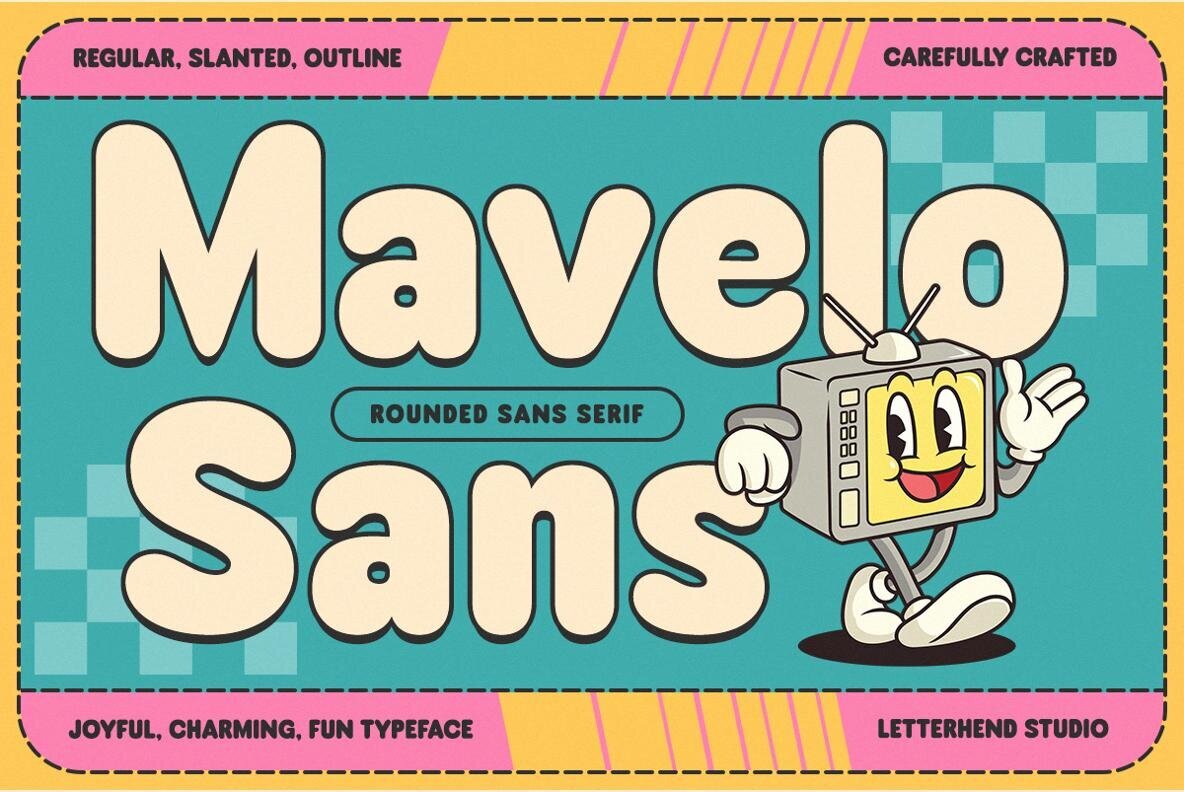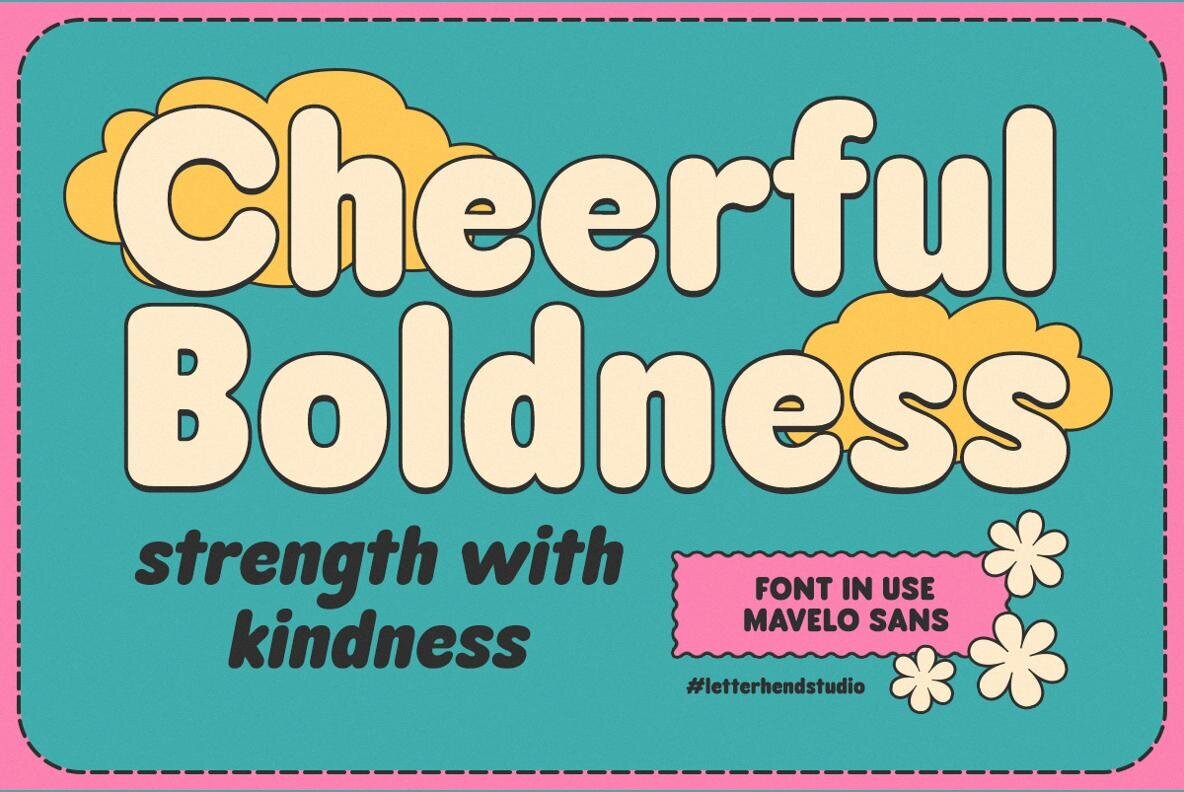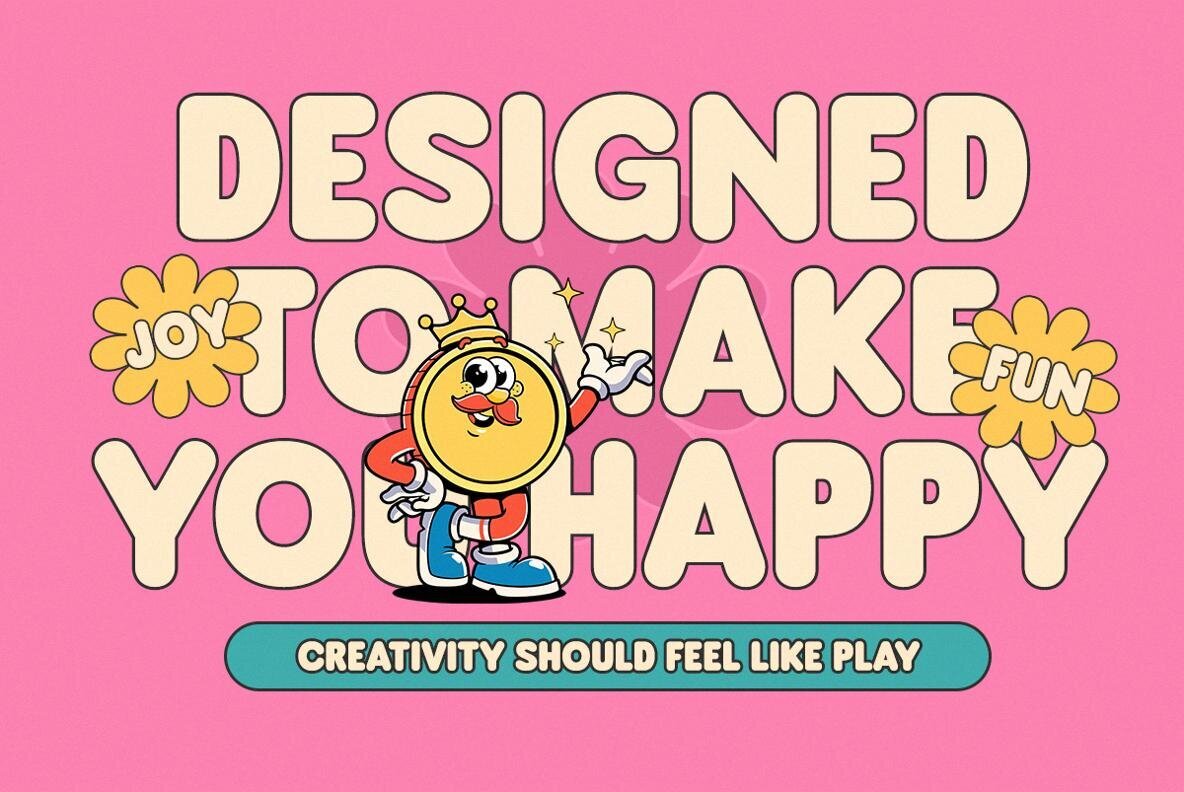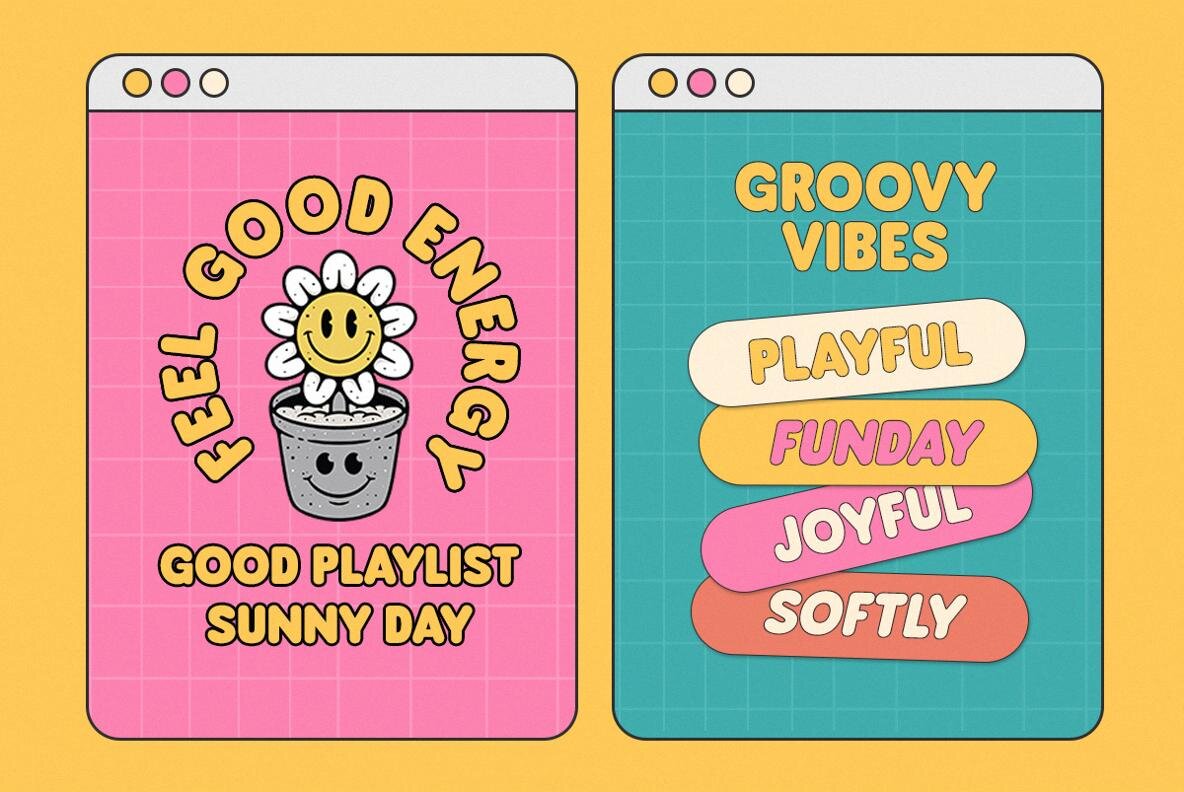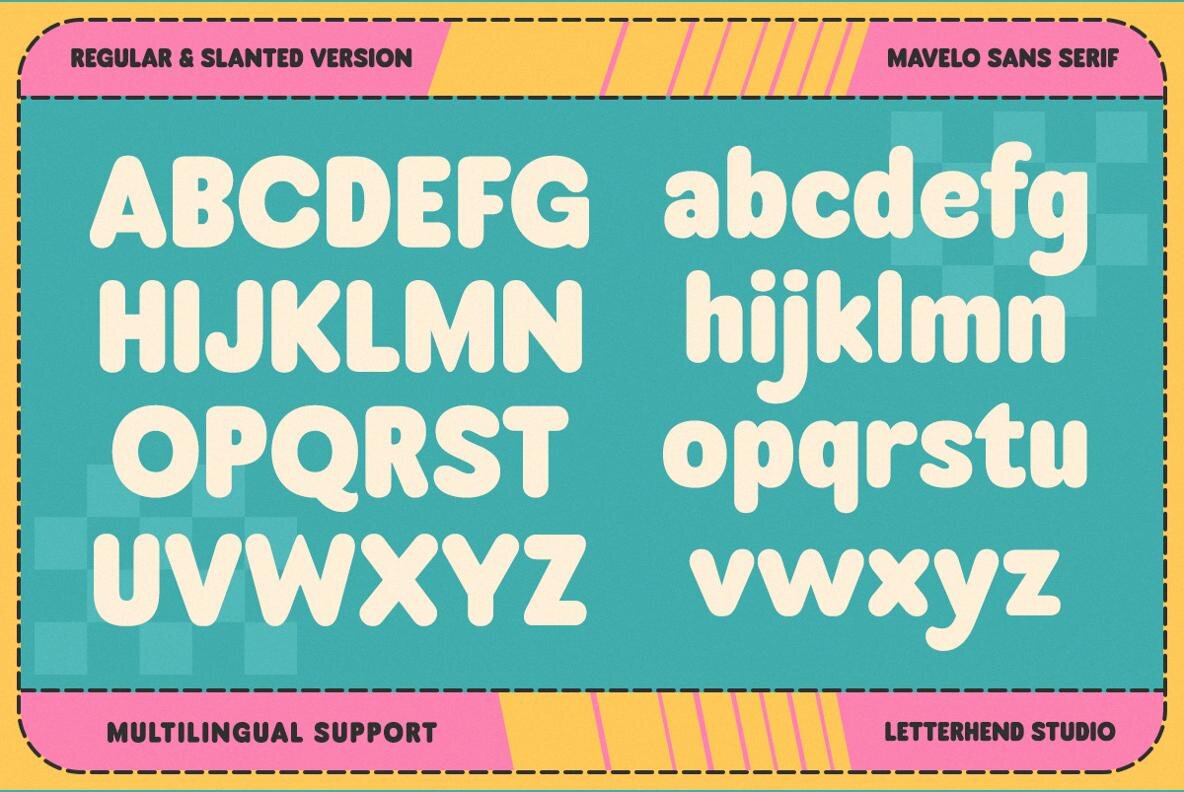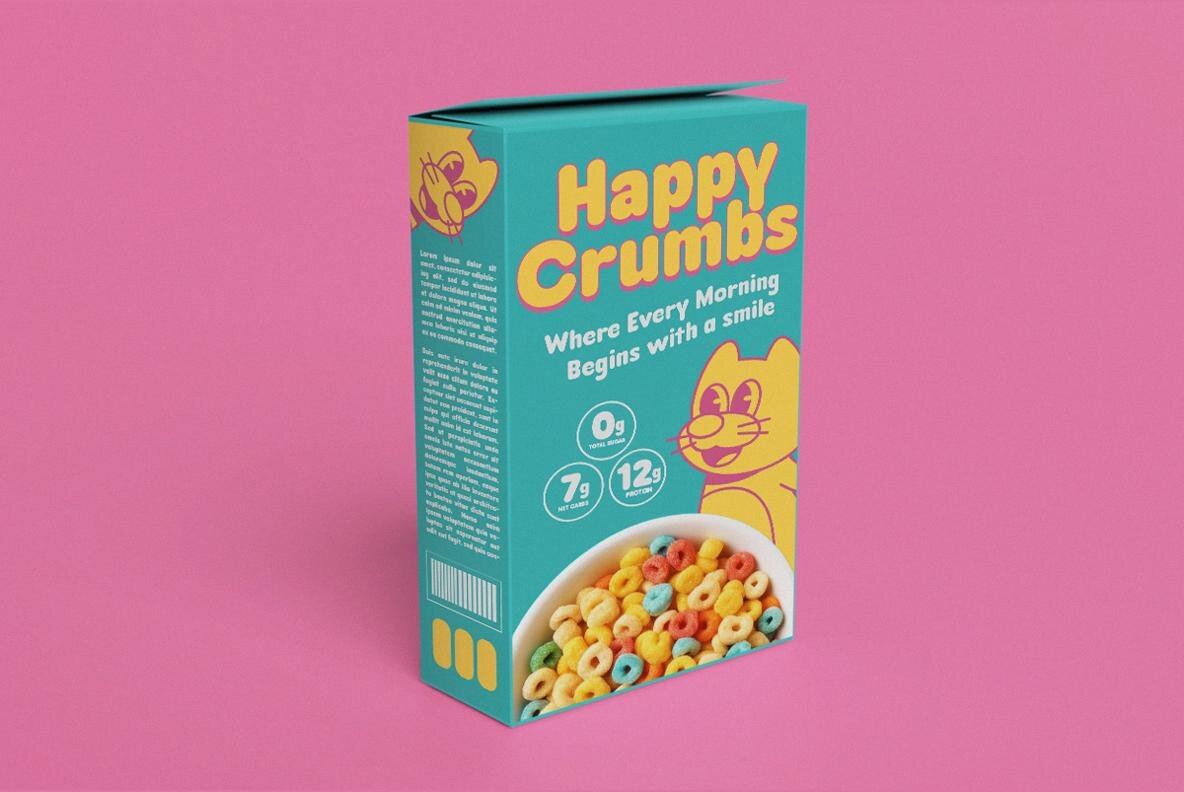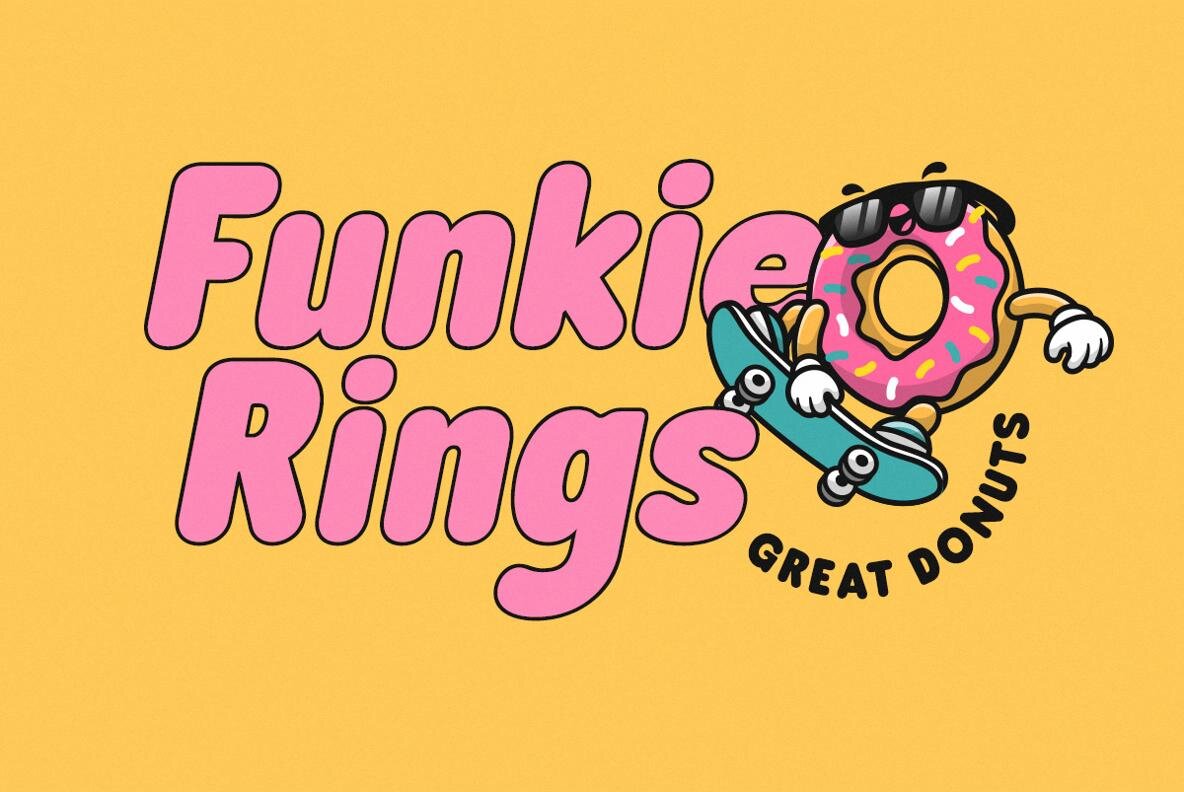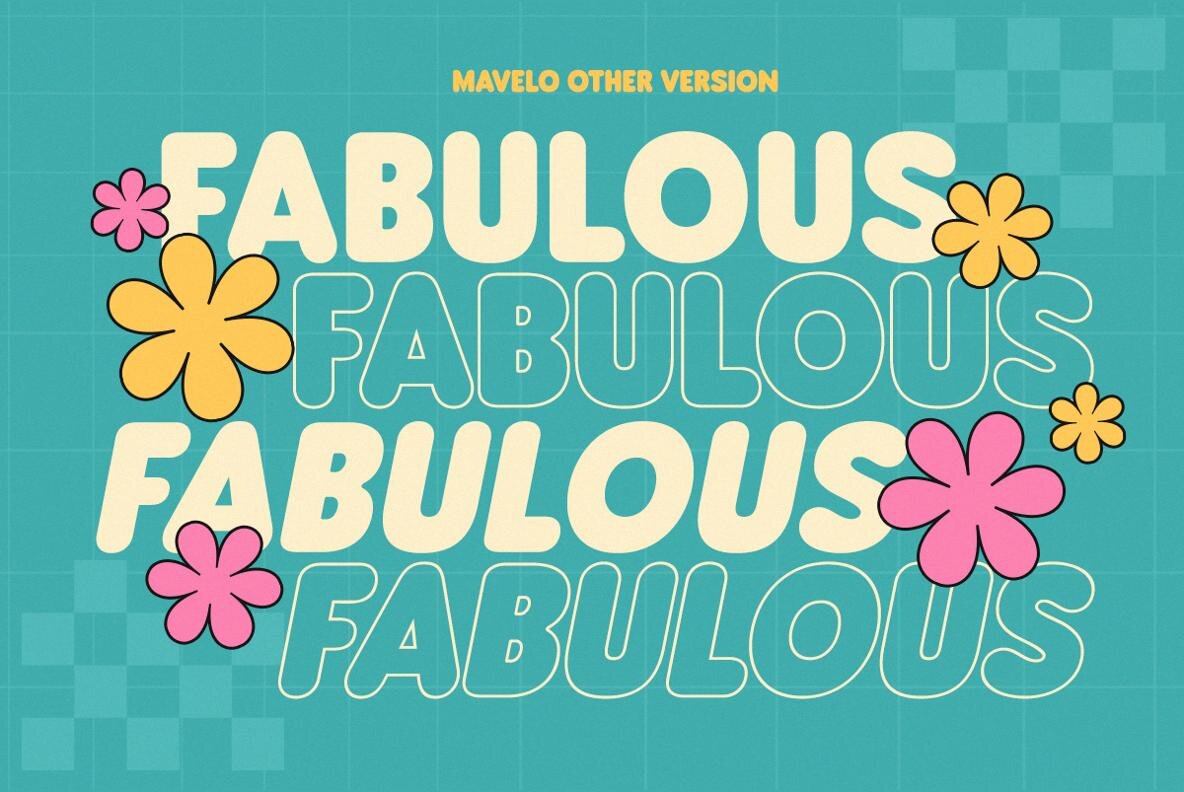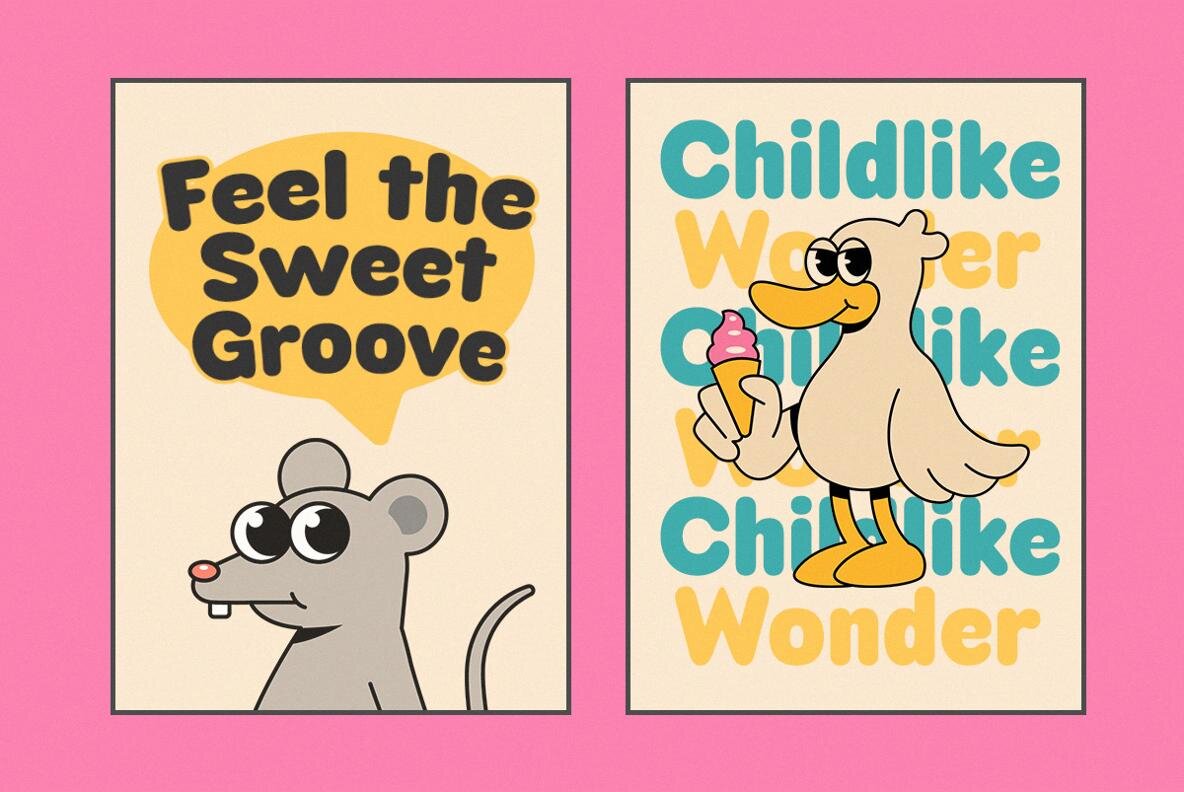
Mavelo Font
Mavelo Sans brings a joyful presence to graphic design projects. This rounded sans-serif font features soft corners and bold shapes, delivering a look that is approachable and inviting. The design balances retro influence with modern clarity, making it a suitable choice for branding, packaging, posters, and digital applications. Its cheerful personality resonates in children’s projects, yet the clean forms remain versatile for broader design contexts. Mavelo Sans offers three distinctive versions: regular, slanted, and outline. This variation expands its usefulness, allowing designers to adapt the font to a range of styles without straying from its core essence. The font’s retro touch adds familiarity while maintaining a contemporary edge.Mavelo Sans: Rounded Sans-Serif With Playful Character